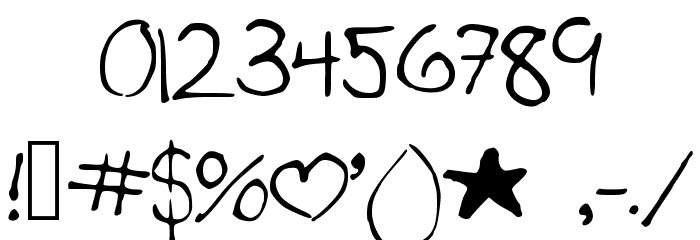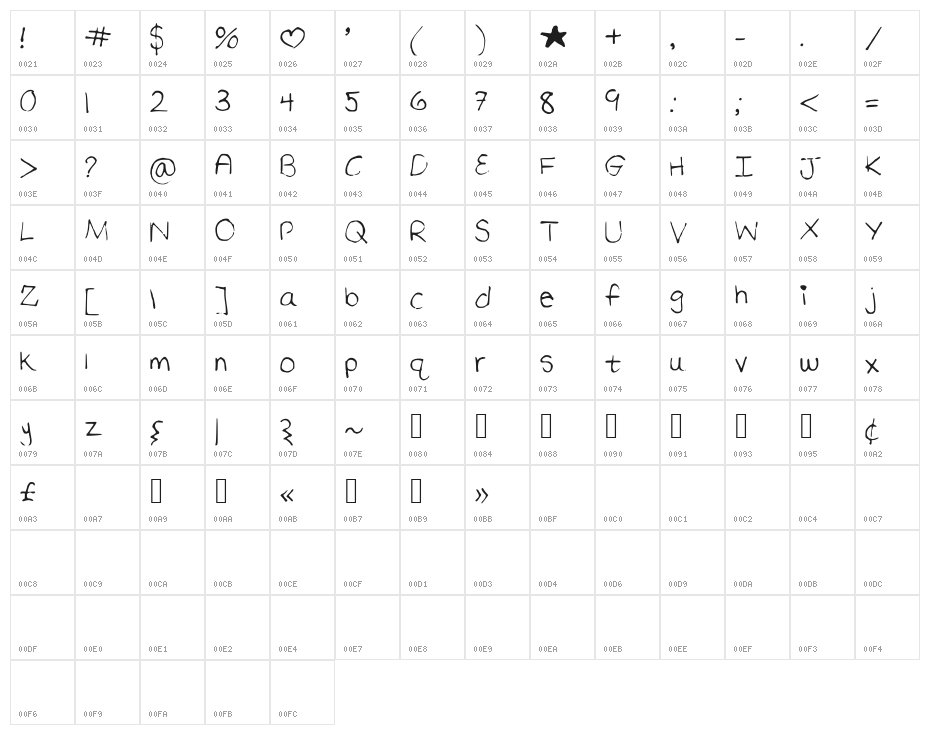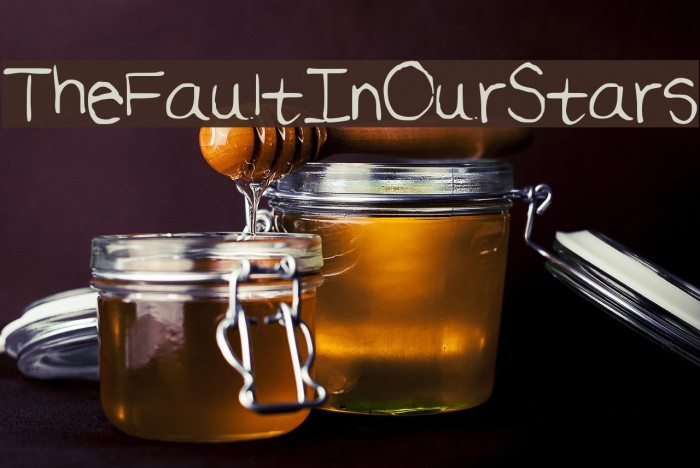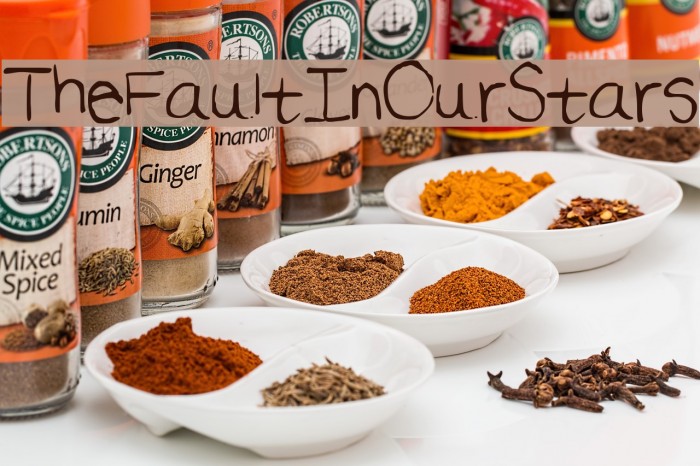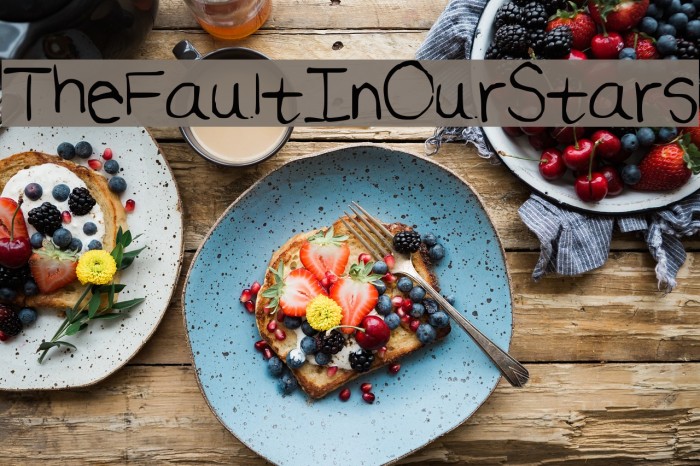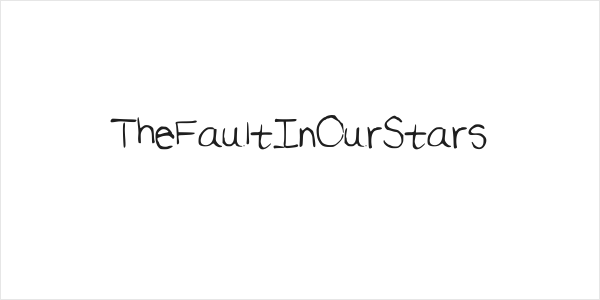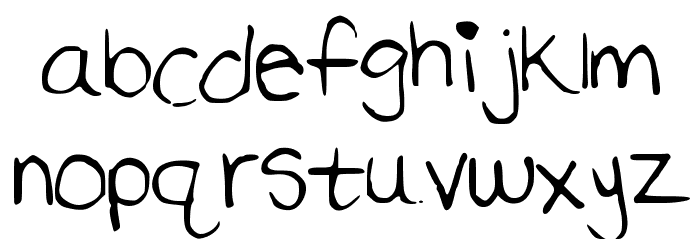
TheFaultInOurStars Font
TheFaultInOurStars Description
This font features a playful and whimsical handwritten style, characterized by its irregular strokes and casual appearance. The letters have a slightly uneven baseline, giving them a dynamic and lively feel. The uppercase letters are bold and prominent, while the lowercase letters maintain a consistent flow with rounded edges. Numbers and special characters follow the same playful theme, adding to the font's overall charm. The strokes vary in thickness, providing a medium contrast that enhances readability while maintaining a unique aesthetic. This font's informal and friendly style makes it suitable for creative and expressive projects.
| Overall Style | Whimsical |
| Use Case | Headlines, Creative projects |
| Proposed Projects | Ideal for children's books, greeting cards, posters, and creative branding. |